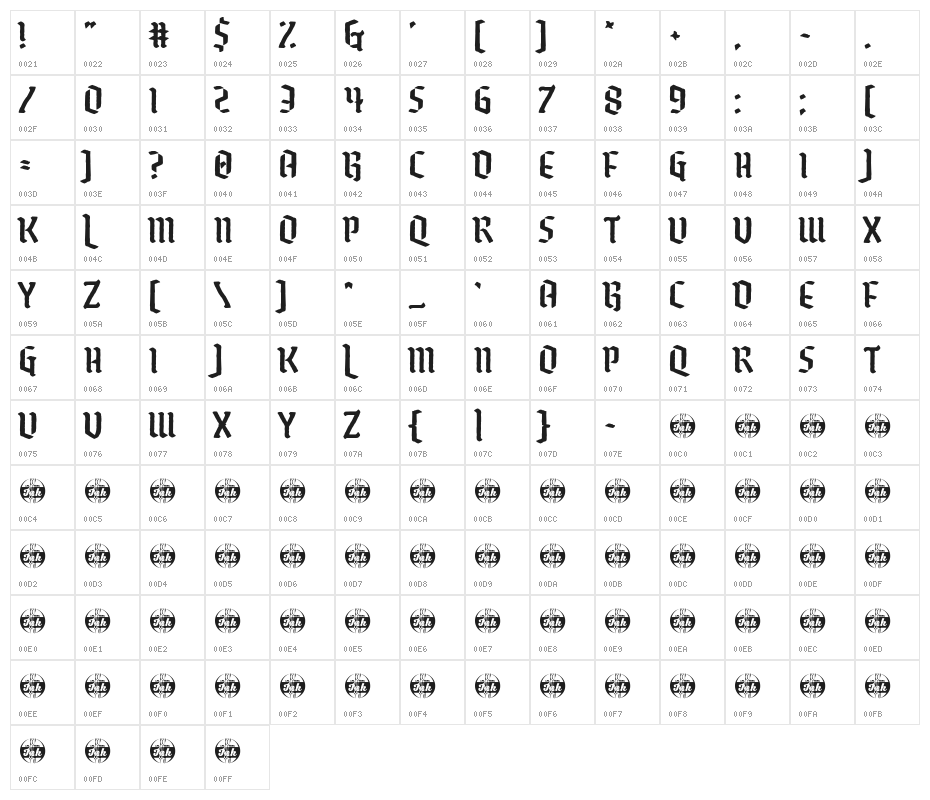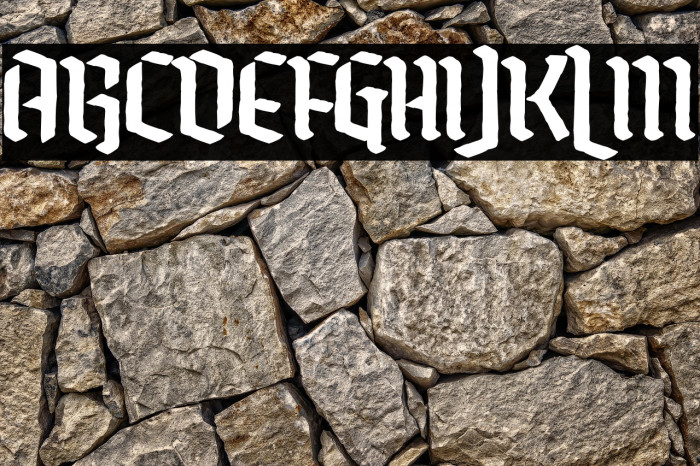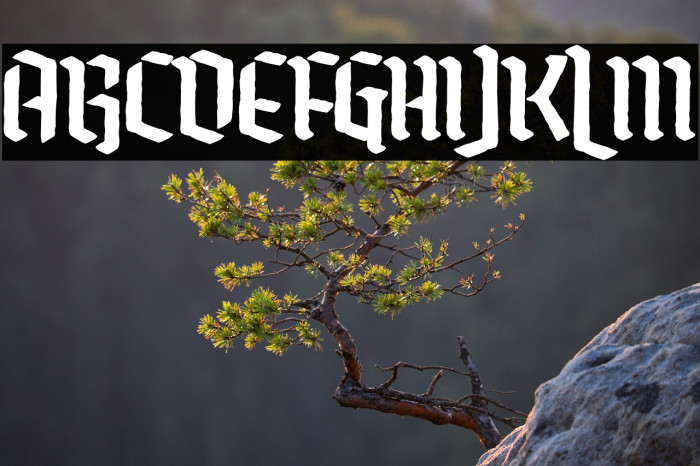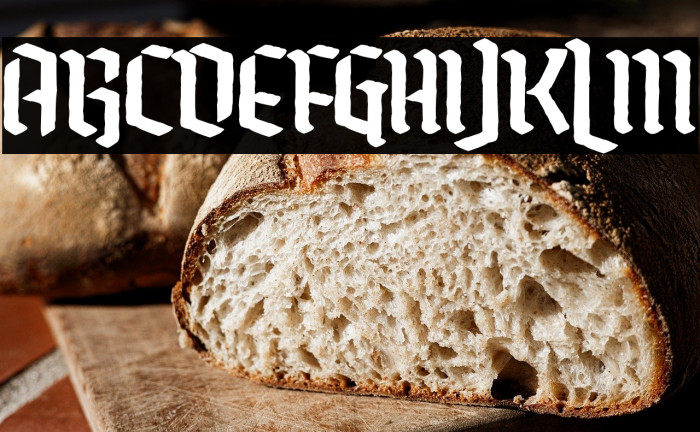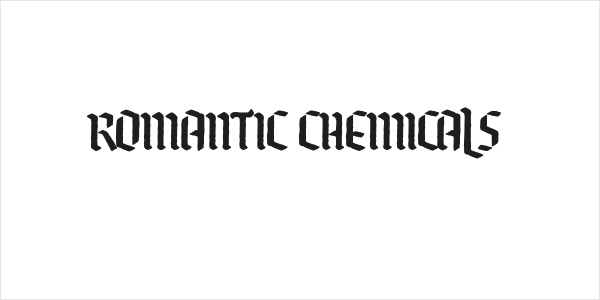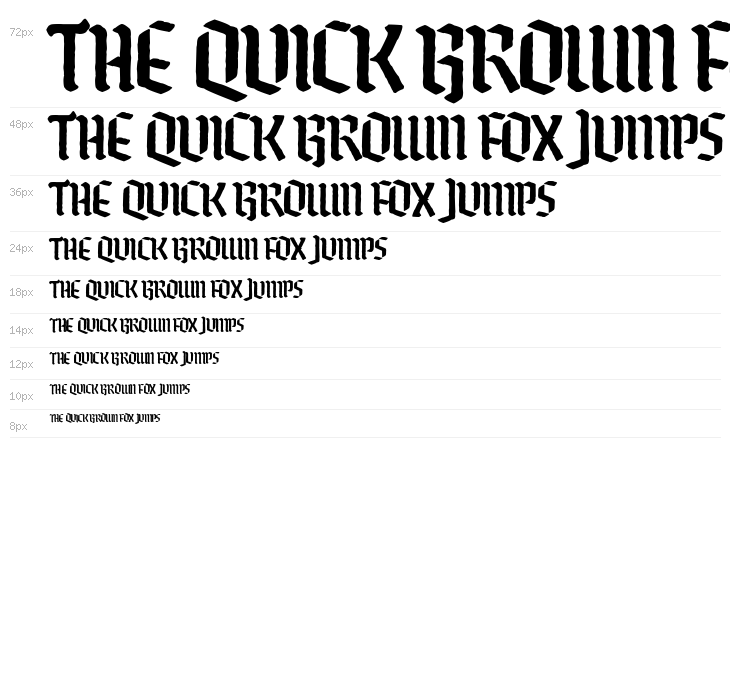
Romantic Chemicals Font
Romantic Chemicals Description
This font features a bold and striking blackletter style, characterized by its sharp, angular lines and dramatic presence. The uppercase and lowercase letters maintain a consistent design, with thick strokes and pointed serifs that give it a gothic and medieval appearance. The numerals and special characters are equally bold, complementing the overall aesthetic. This font's intricate design is reminiscent of traditional calligraphy, making it suitable for projects that require a historical or formal touch.